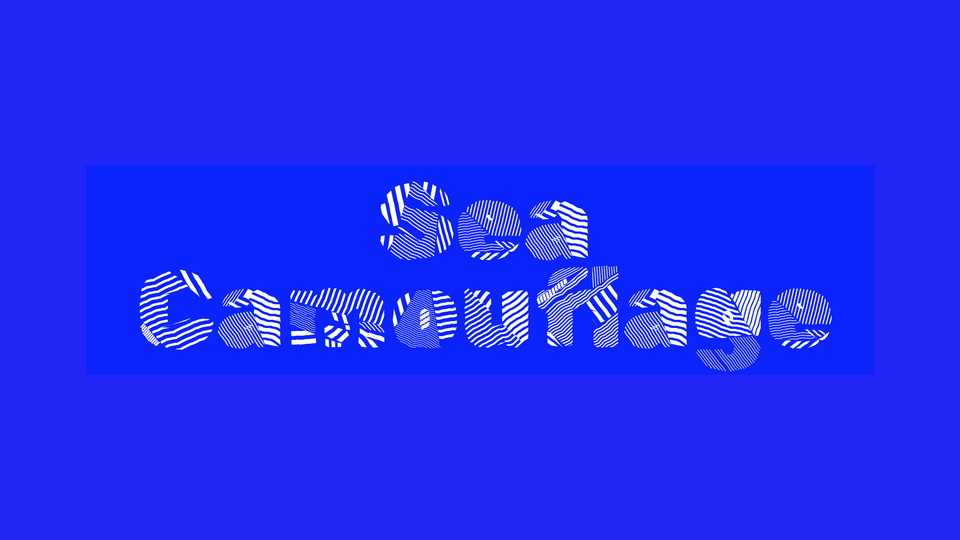
Download Rubik Sea Camouflage font, a decorative pattern based display typeface created with NaN Glyph filters – a collection of procedural font designs and the codebase for GlyphsApp.